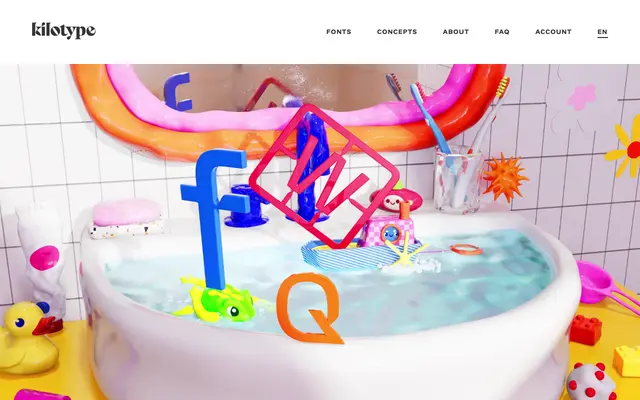
Plastique
Plastique specimen from Kilotype
An industrial sans serif drawing on injection moulding aesthetics and optical character recognition history, with ink traps and open forms optimised for small-size rendering.
Designed by William Montrose, Plastique pairs the clear geometry of an industrial sans with small curves and soft transitions that echo injection-moulded plastics. The family cites Matthew Carter's Bell Centennial and Karlgeorg Hoefer's FE type as reference points for crude-condition legibility, deploying ink traps, spread diagonals and open shapes accordingly. Six weights with duplexable uprights and italics suit UI environments, while a parallel Frame subfamily mimics the visual language of the moulding process itself.
A clear-form industrial sans serif with references to OCR typefaces and functional type history, softened by curves derived from injection moulding; duplexable uprights and italics point to UI and text utility.